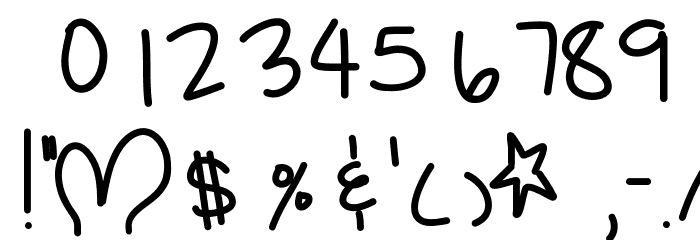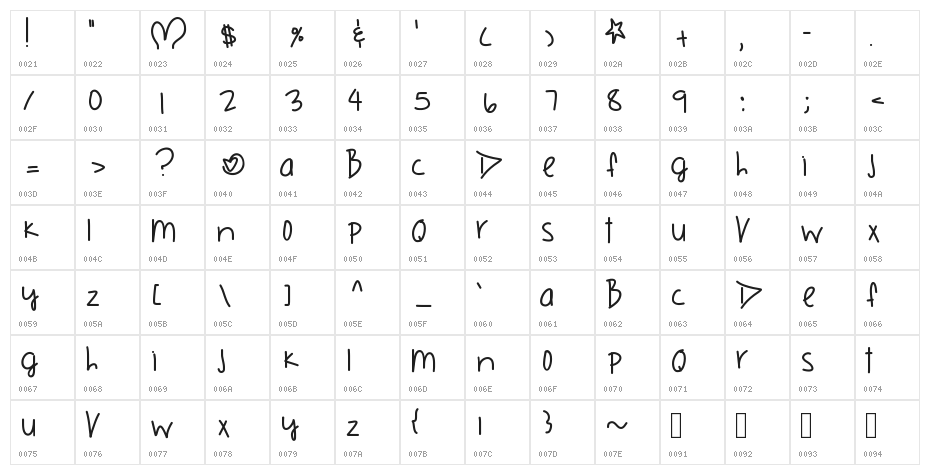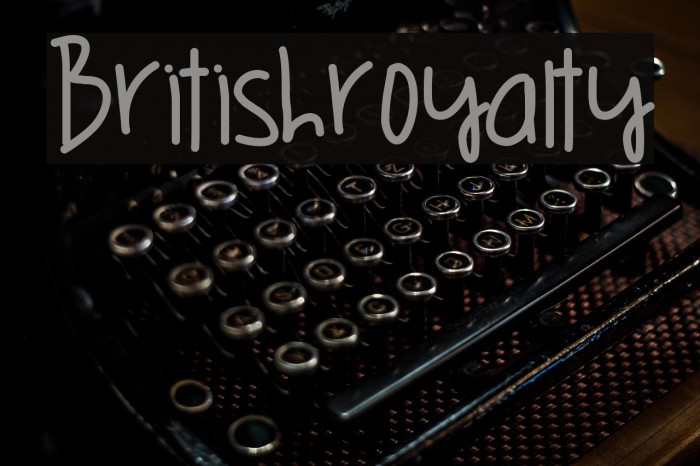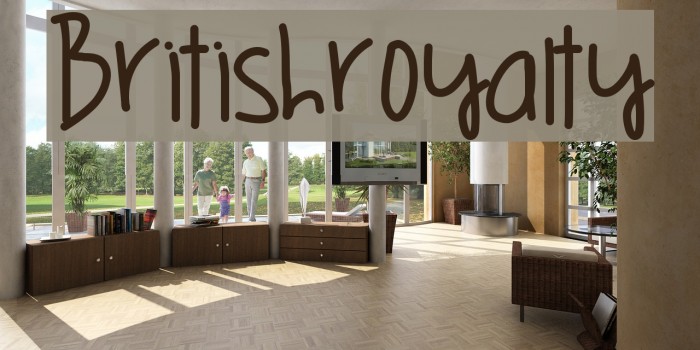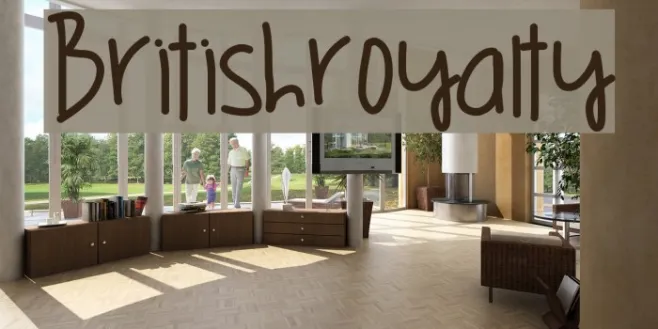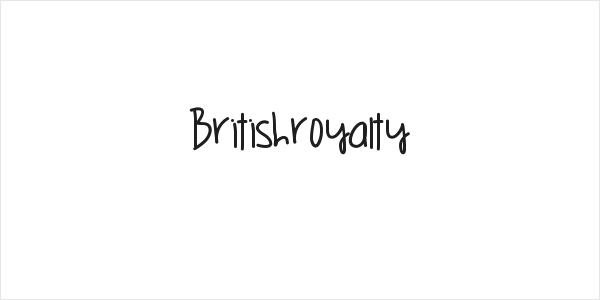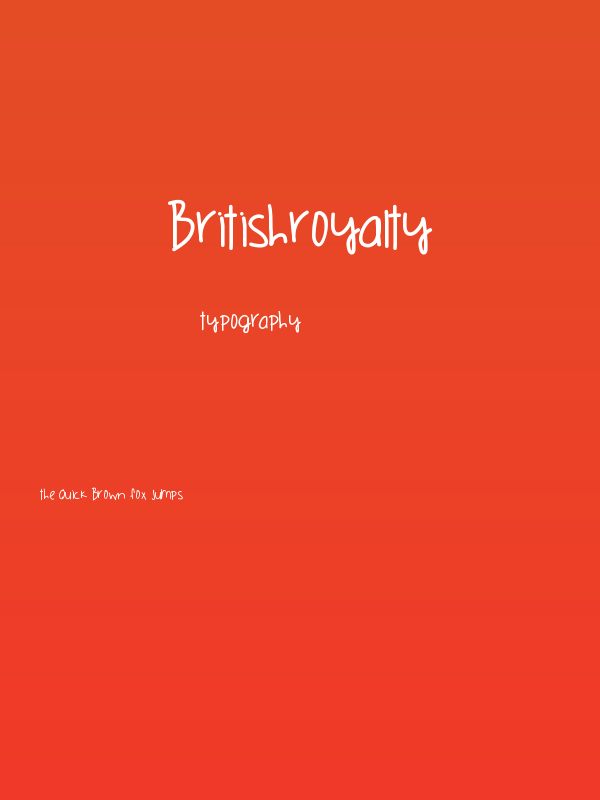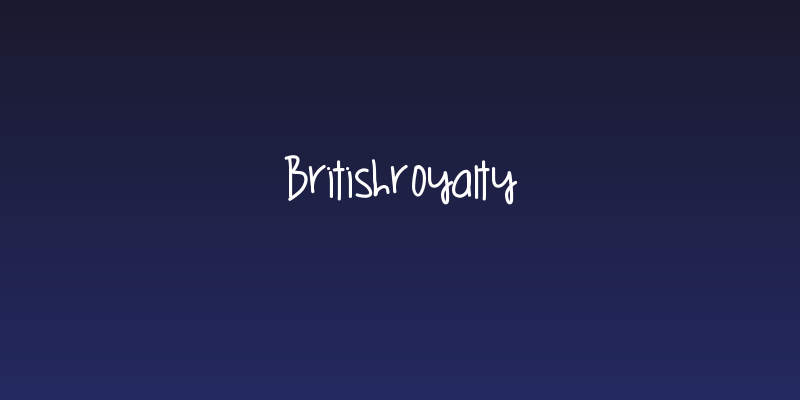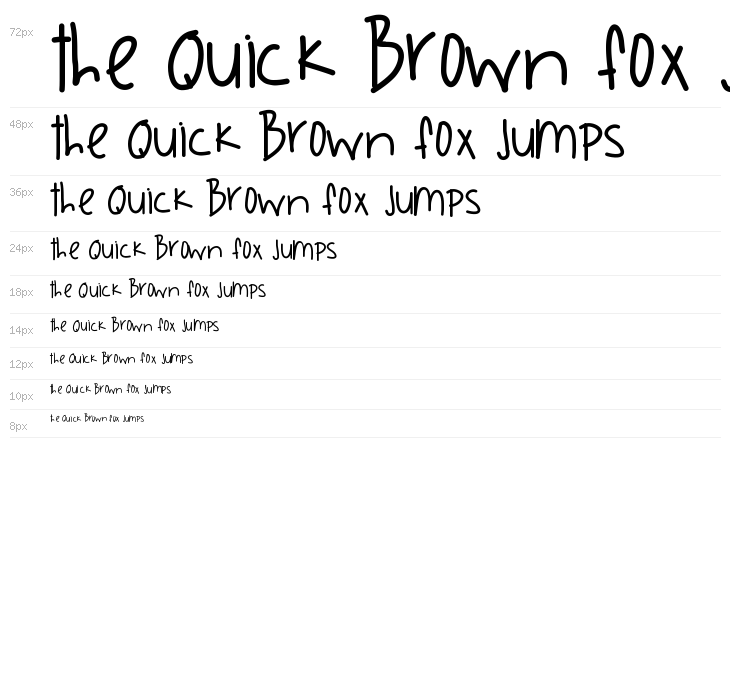
BritishRoyalty Font
BritishRoyalty Description
This playful and whimsical font features a handwritten style with a casual, informal appearance. The characters are slightly uneven, adding to the charm and personality of the typeface. The strokes are consistent in width, giving it a uniform look despite its freeform nature. The letters have a slight tilt, enhancing the dynamic and lively feel. The special characters are creatively designed, maintaining the playful theme. This font is ideal for projects that require a personal touch or a fun, approachable aesthetic.
| Proposed Projects | Perfect for children's books, greeting cards, personal blogs, and playful branding. |